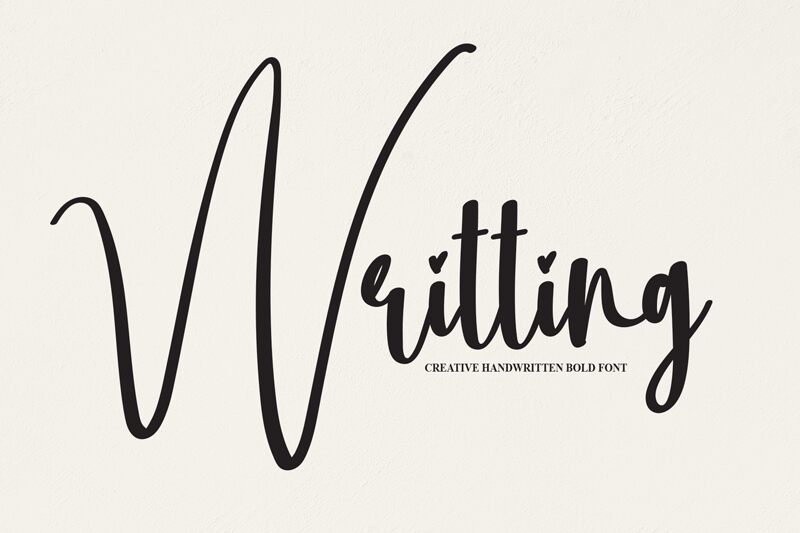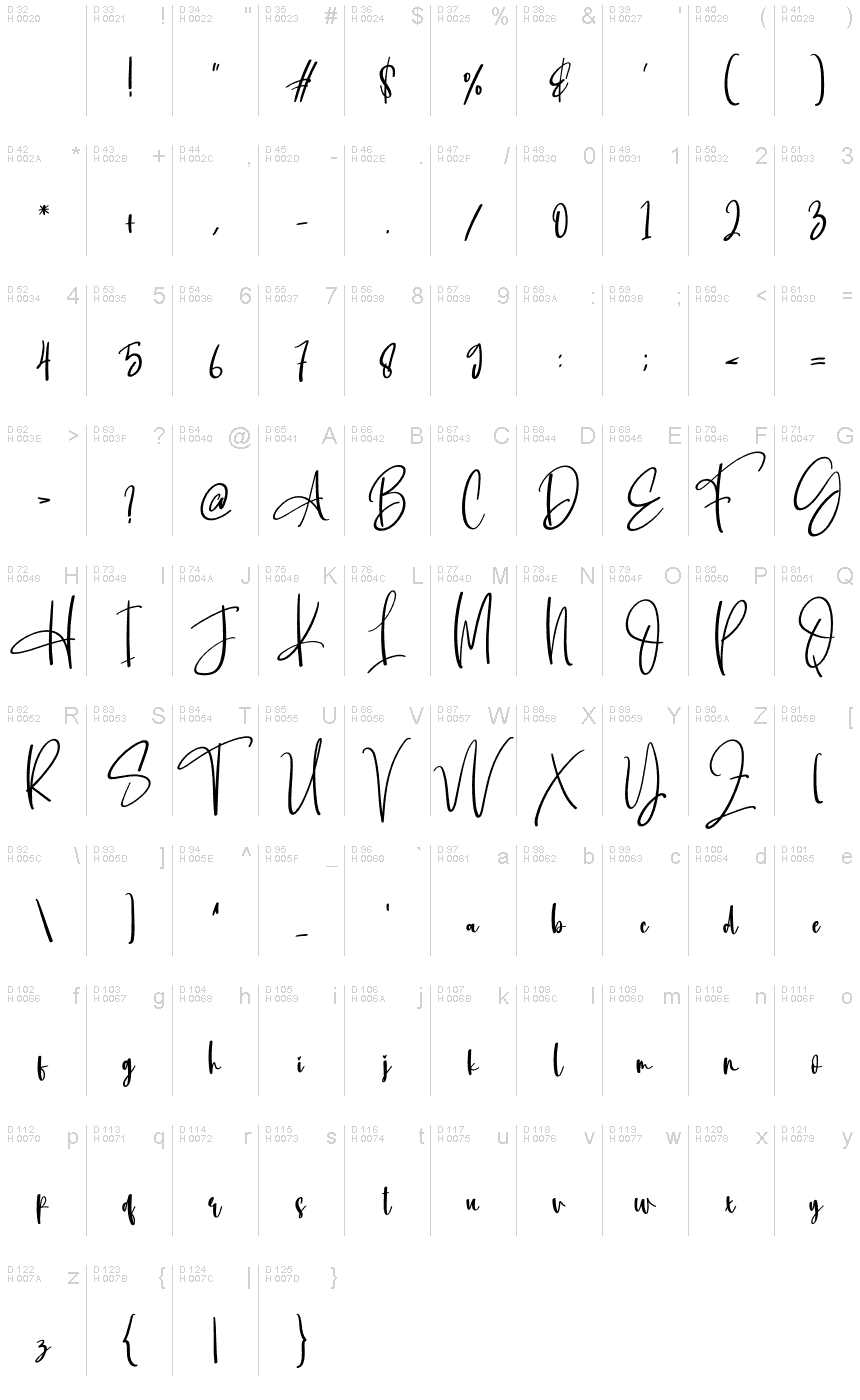
Writting
Meet Writting, the latest handwritten typeface crafted by scratchones. With its light weight and semi-condensed width, this versatile font is perfect for a wide range of projects. From wedding invitations to food packaging, Writting adds an elegant touch to any design. Its fluid strokes and natural curves convey a sense of authenticity and warmth that resonates with readers. Use it for branding, logos, or social media posts - the possibilities are endless! Bring your words to life with Writting and let your creativity soar.
the latest style letters are perfect for wall displays, wedding invitations, social media post logos, advertisements, product packaging, product designs, labels, photography, watermarks, invitations, stationery, and any project that requires taste handwriting.